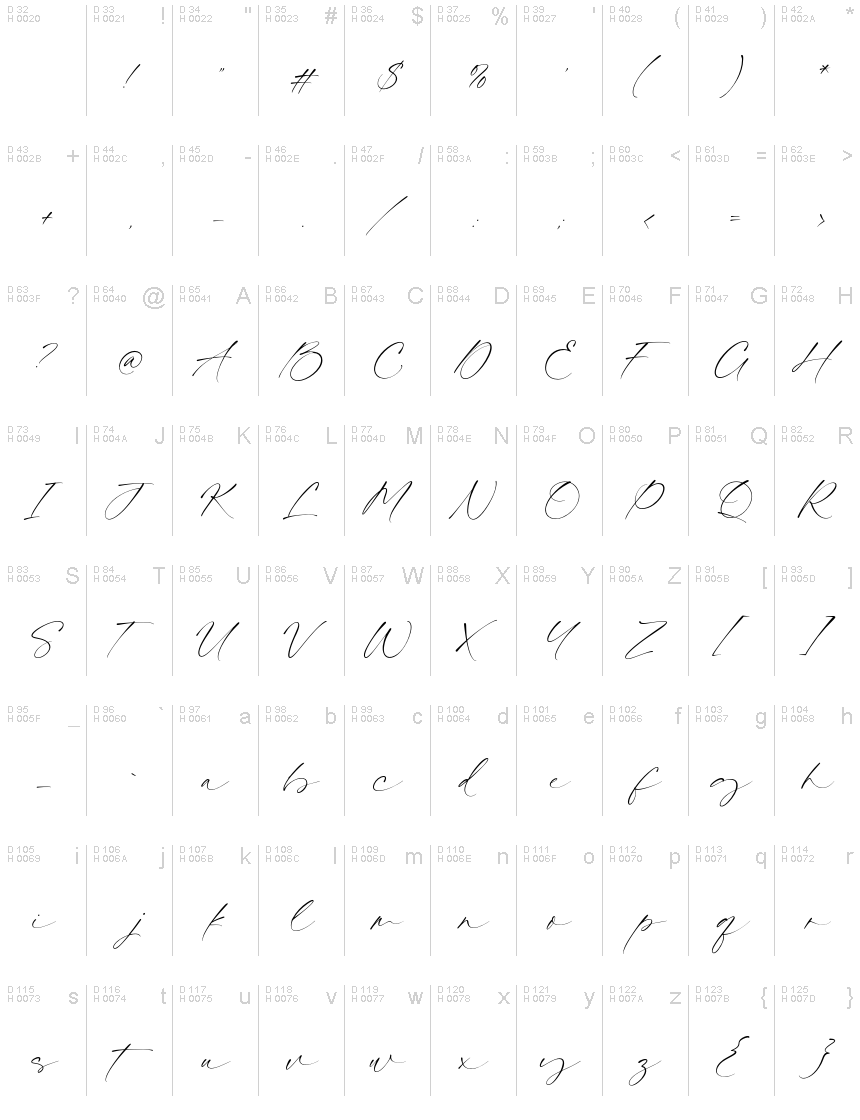
Mirabella-Regular
Mirabella, a sublime creation by Lunas Type, encapsulates the essence of personal touch in its handwritten style. Crafted with an extra-light weight, this font exudes an airy elegance that is as delicate as it is impactful. The fluidity of Mirabella's characters invites a sense of intimacy and authenticity, making it an impeccable choice for projects that require a bespoke feel.
The aesthetically pleasing nuances of Mirabella lie in its gentle curves and fine lines that mimic the gracefulness of calligraphy. This font stands out for its ability to add a sophisticated flair to wedding invitations, branding materials, and editorial designs where a touch of finesse is paramount.
Mirabella's versatile nature does not compromise on readability despite its extra-light weight—each character remains distinct and legible. Its potential extends to digital platforms as well, where it can infuse apps and websites with its signature charm without overwhelming the user interface. Whether used sparingly or as the focal text element, Mirabella promises to elevate creative expressions with its unique handwritten allure.